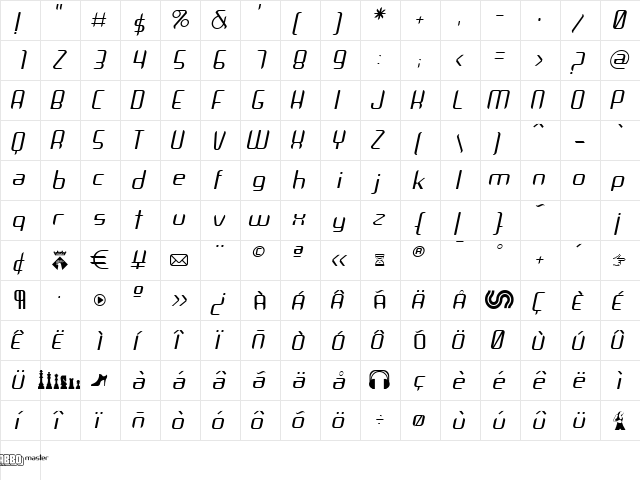
Arbeka LightItalic
Design Context for Arbeka Typeface
Arbeka takes a measured approach to typography — its balanced proportions and neutral character make it a reliable workhorse for both digital and print work. The slanted form adds forward momentum and visual energy. Its slender proportions lend an understated elegance to any composition.